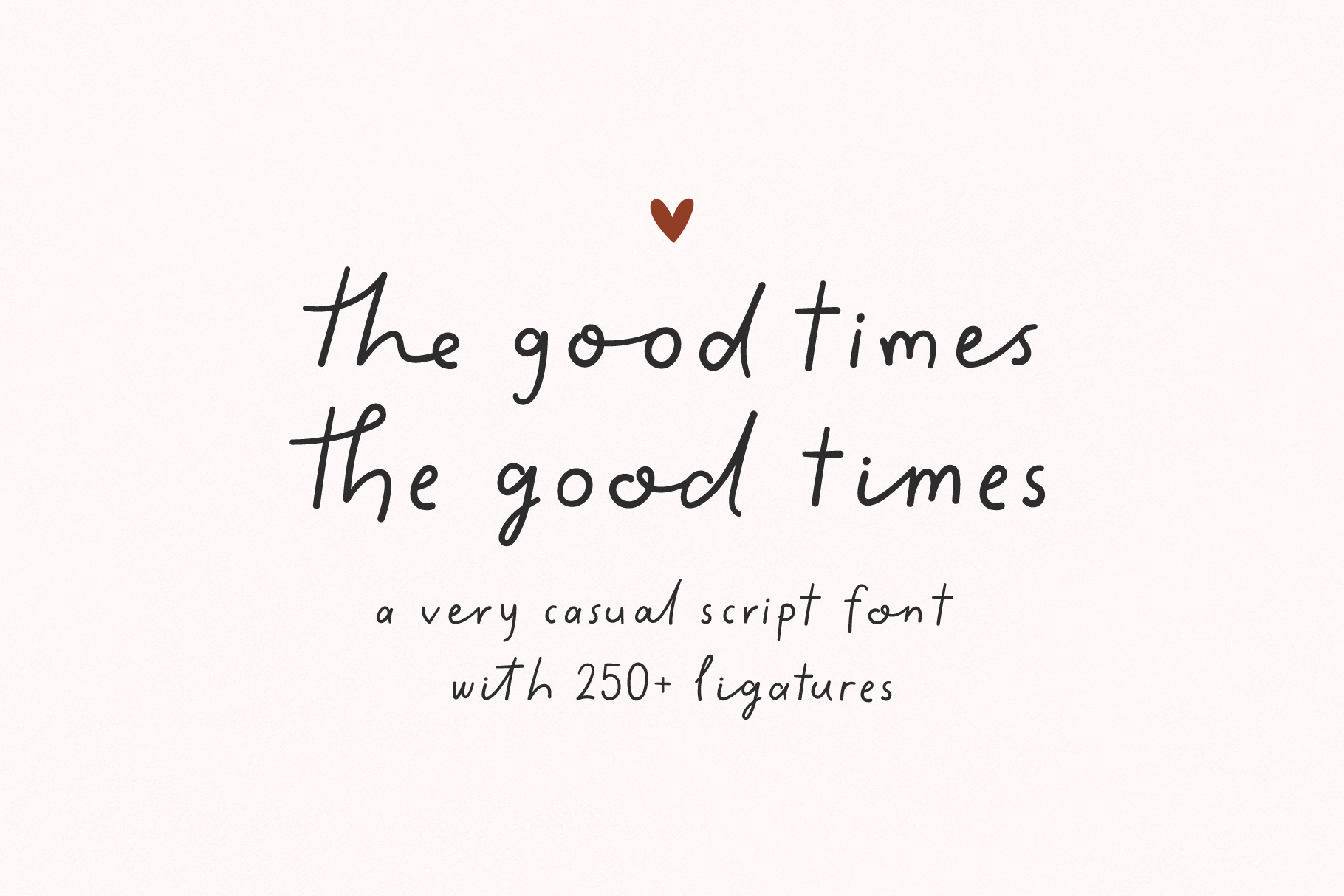
The Good Times ligature script font
Say hello to The Good Times, a very casual ligature based script font. It is great for social media, craft projects, invitations, greeting cards, printed goods or anything that requires a touch of warm handwritten feel.
FONT FEATURES • Handwritten script • Standard characters (2 sets of lowercase, uppercase, numbers, punctuation) • 205+ Ligatures • Supported Languages: Basque, Catalan, English, Finnish, French, Galician, German, Italian, Low German, Luxembourgish, Portuguese, Spanish, Swedish, Swiss German, Turkish